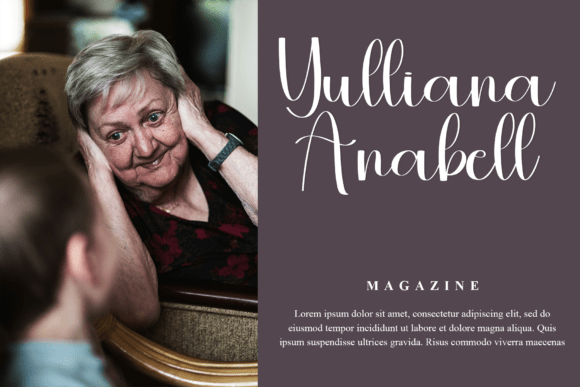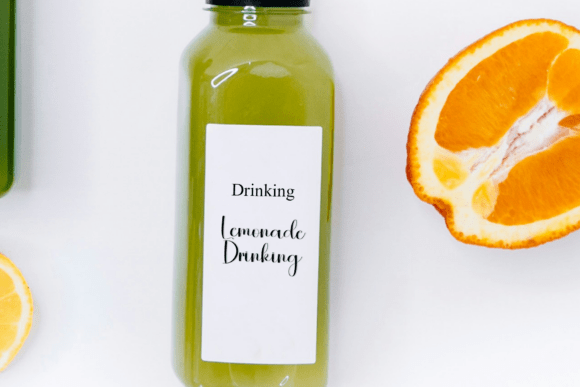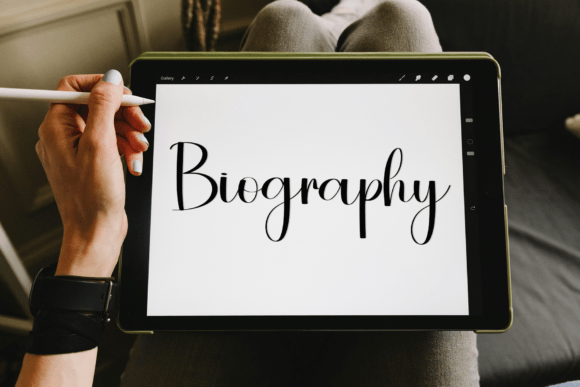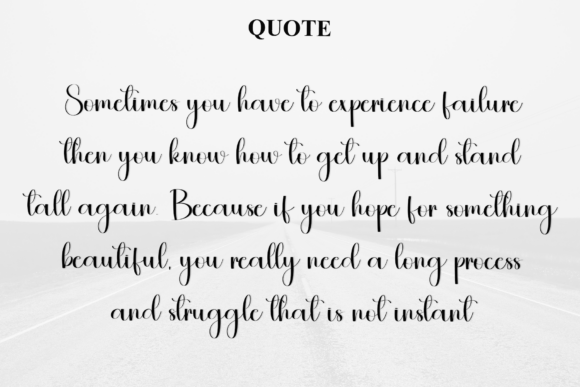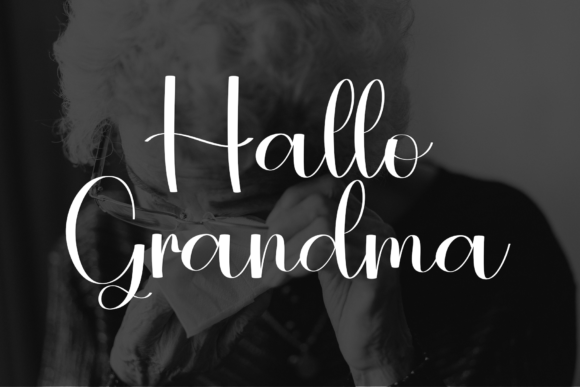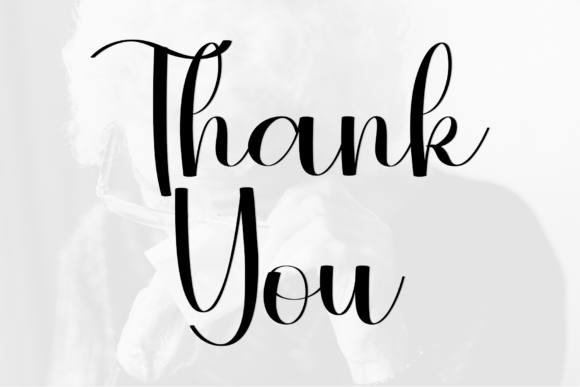
The Birth of a Beautiful Font: Celebrating Birthday Grandma
I’ll never forget the moment I stumbled upon the perfect font for a client’s birthday project. I was working on a custom design for a granddaughter’s birthday card, and I wanted to make it extra special. The client had asked for a font that was both elegant and playful, but I was struggling to find one that fit the bill. That was when I discovered the Birthday Grandma Font ✨. Its soft, unique touch and distinctive strokes immediately caught my eye, and I knew I had found the perfect fit.
So, what makes the Birthday Grandma Font so special? Here are a few things I love:
- ✨ Unique and eye-catching design: The font’s soft, cursive strokes give it a beautiful, handmade feel that’s perfect for creative projects.
- 🎨 Perfect for design projects and crafts: The font’s distinctive character makes it ideal for a variety of creative works, from custom birthday cards to DIY crafts.
- 🤔 Limited availability of certain characters: Some users have reported that certain characters, such as accented letters, may not be available in the font.
- ⚠️ May not be suitable for body text: Due to its unique design, the Birthday Grandma Font may not be the best choice for large blocks of body text.
The Story Behind Birthday Grandma Font
The Birthday Grandma Font was designed with love and care by a talented typographer who wanted to create a unique and special font for creative projects. The font’s soft, cursive strokes are inspired by traditional handwriting, and its distinctive character makes it perfect for a wide range of designs.
| What is the Birthday Grandma Font? | The Birthday Grandma Font is a beautiful and eye-catching font designed with a soft, unique touch. Its distinctive strokes give it a special character, making it meaningful and versatile for future use. |